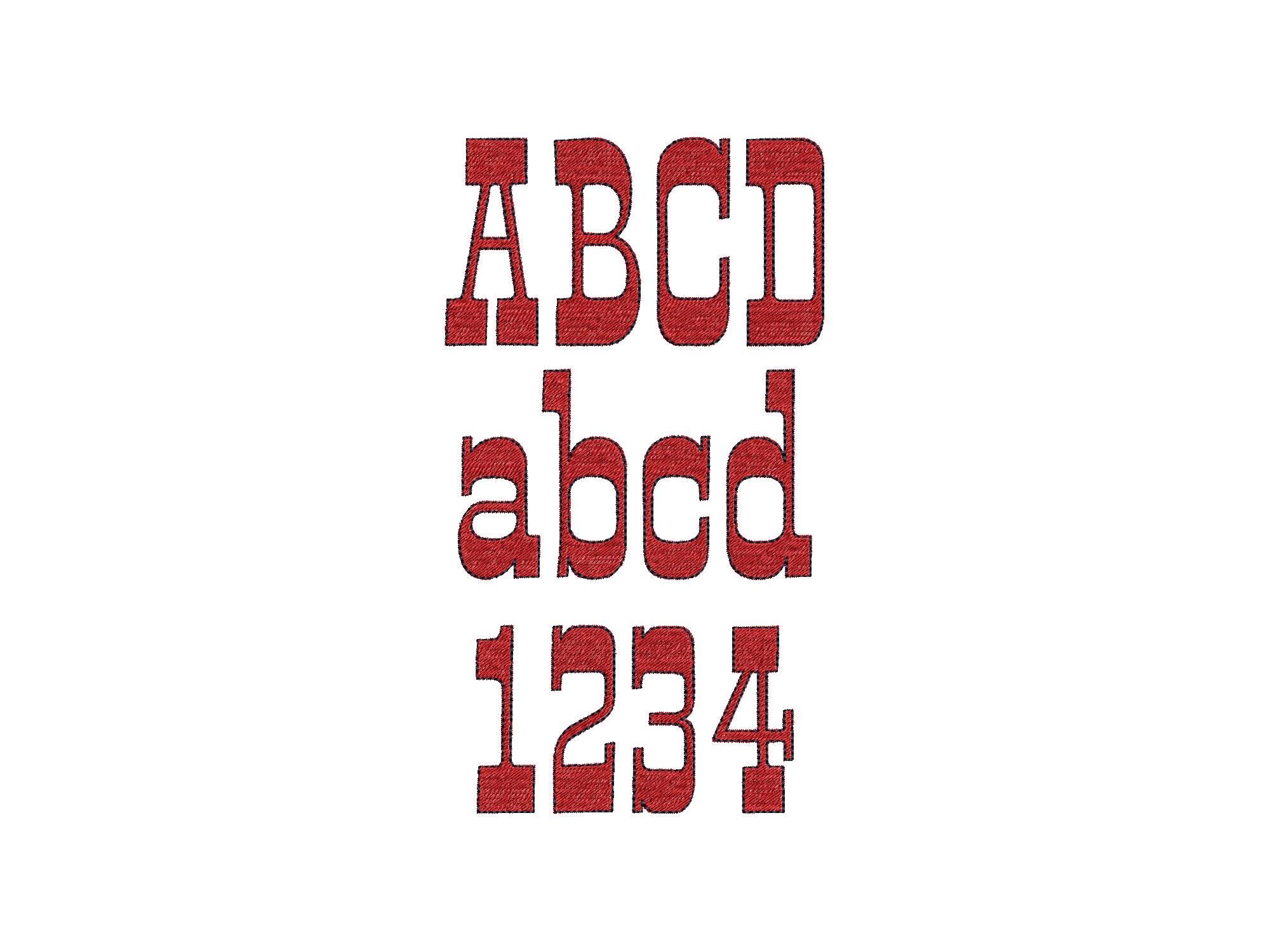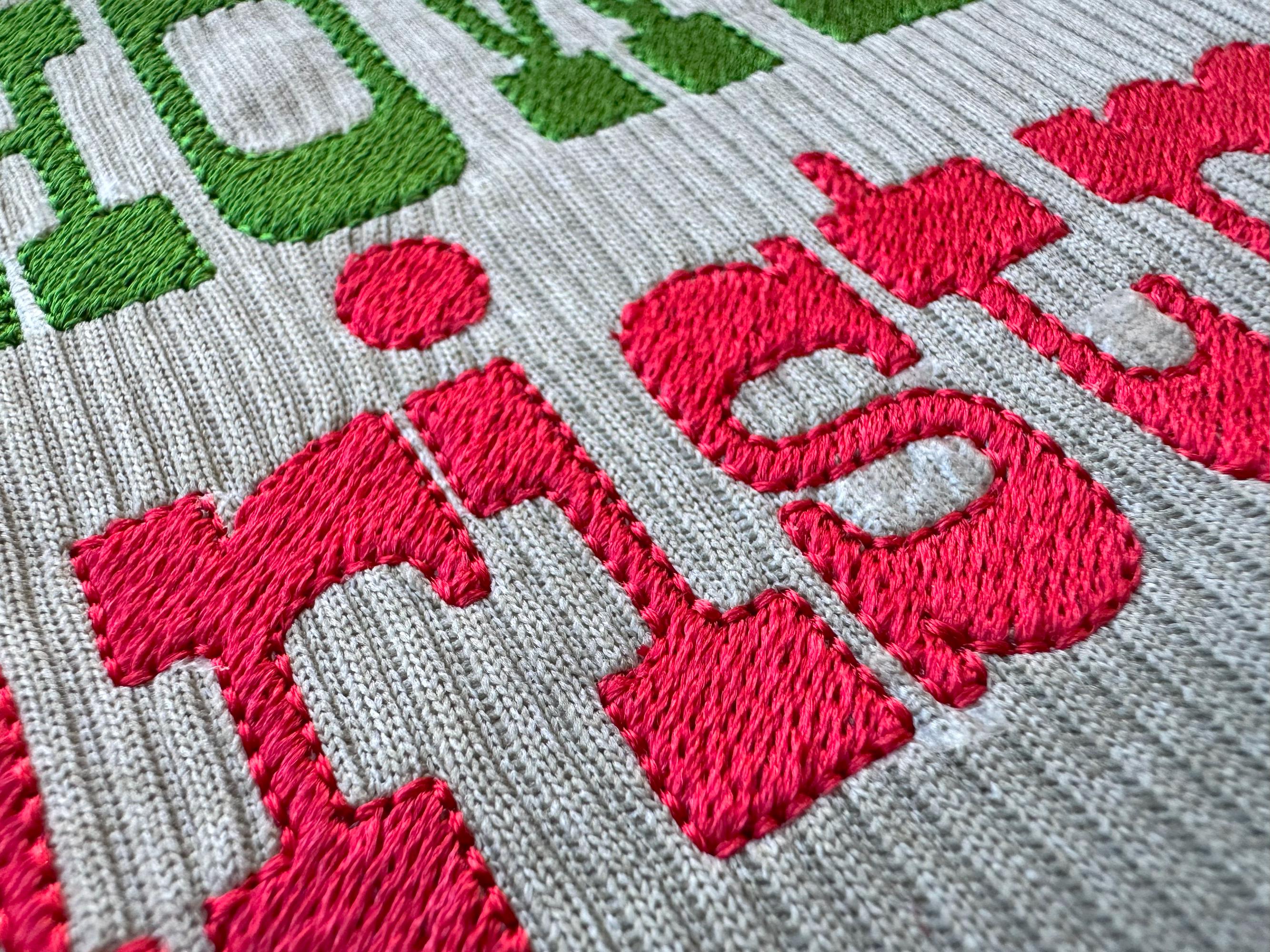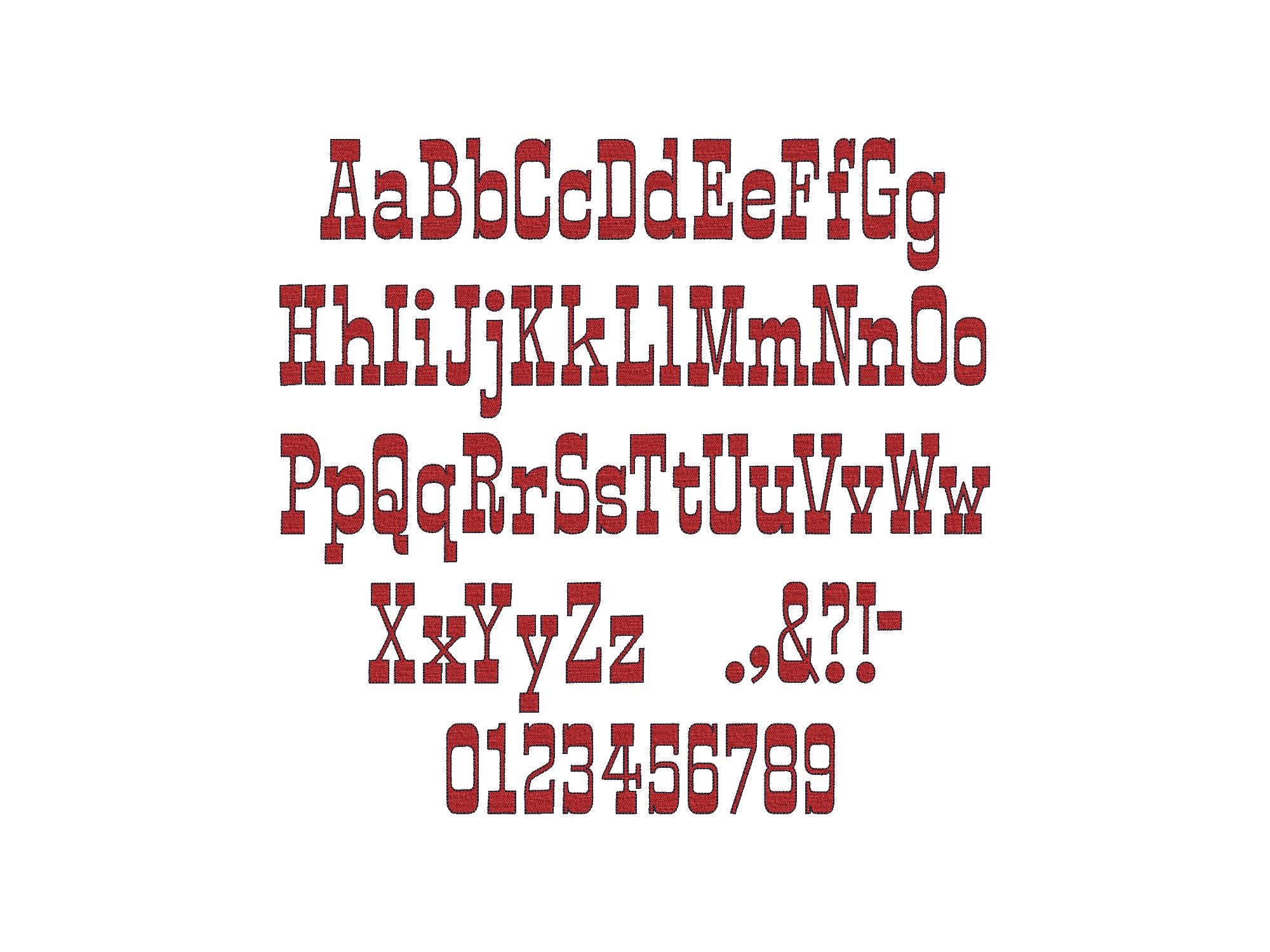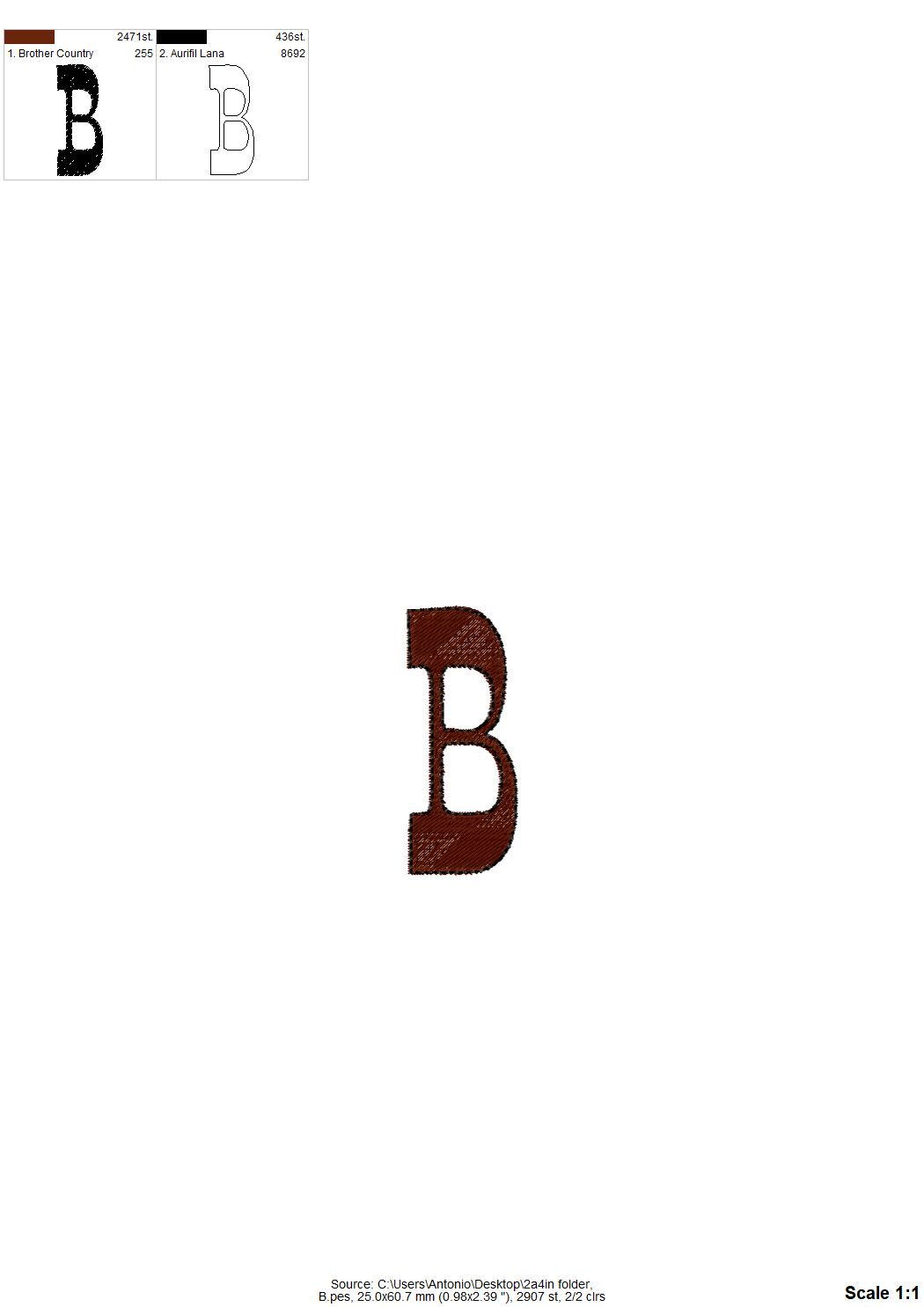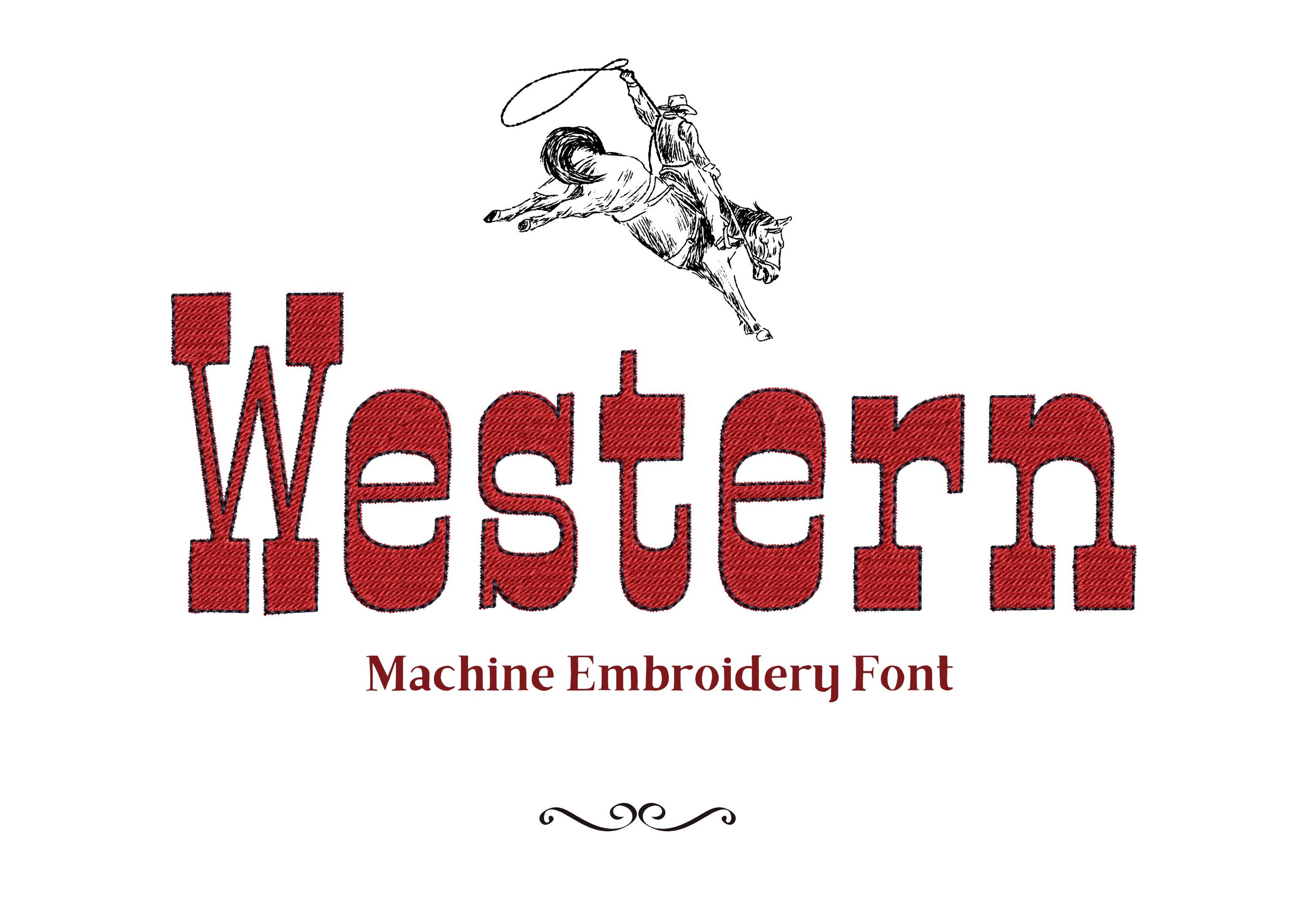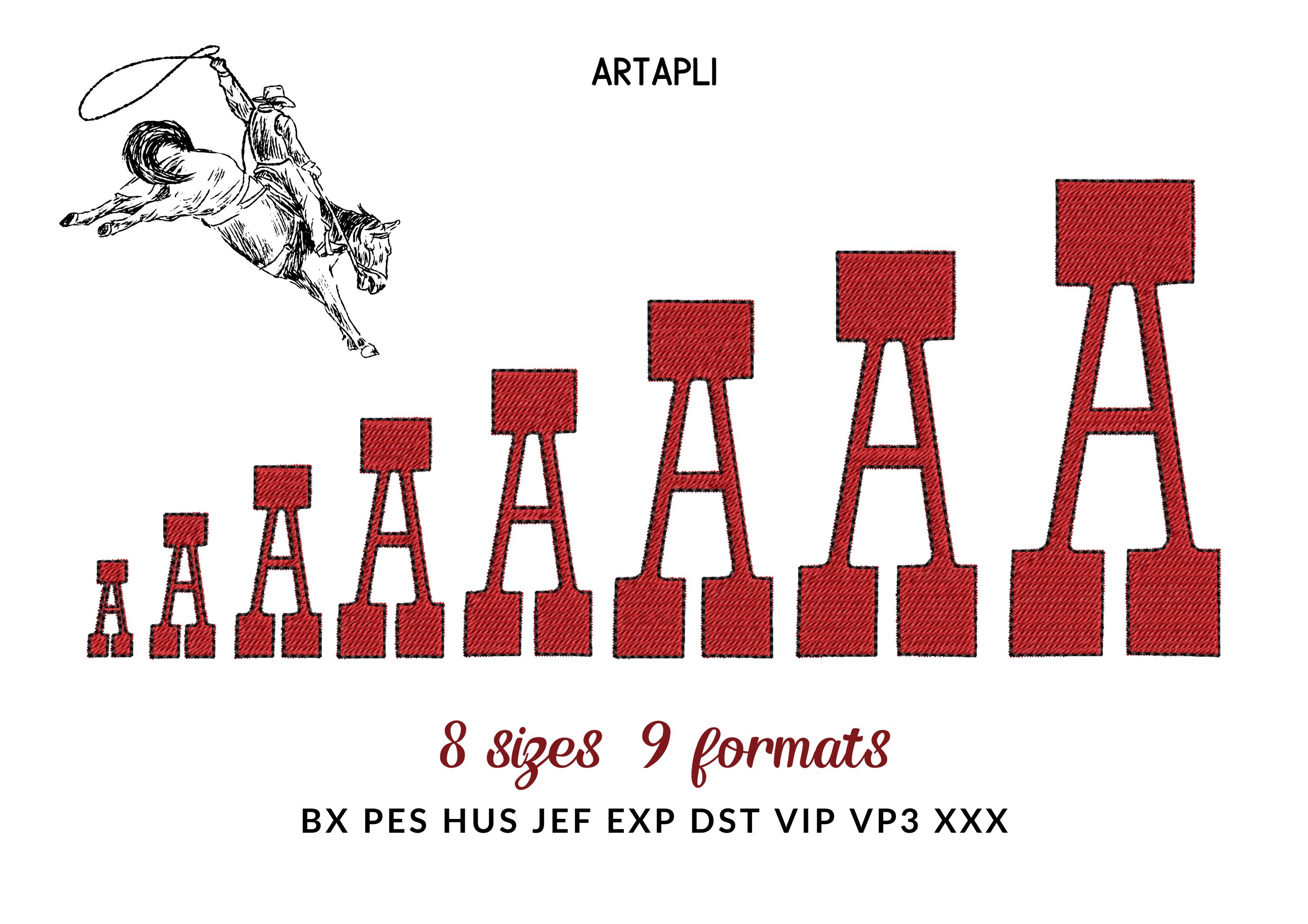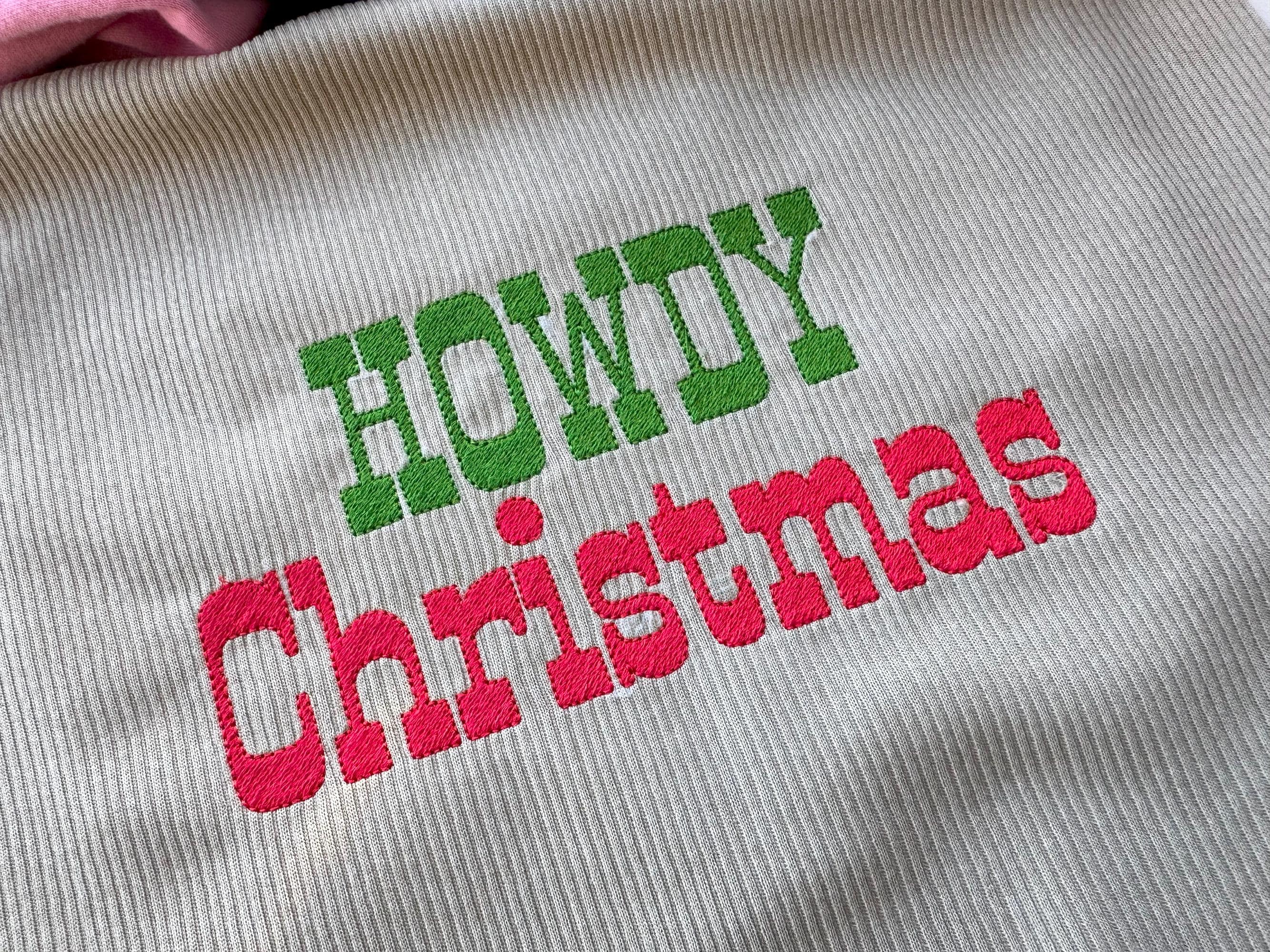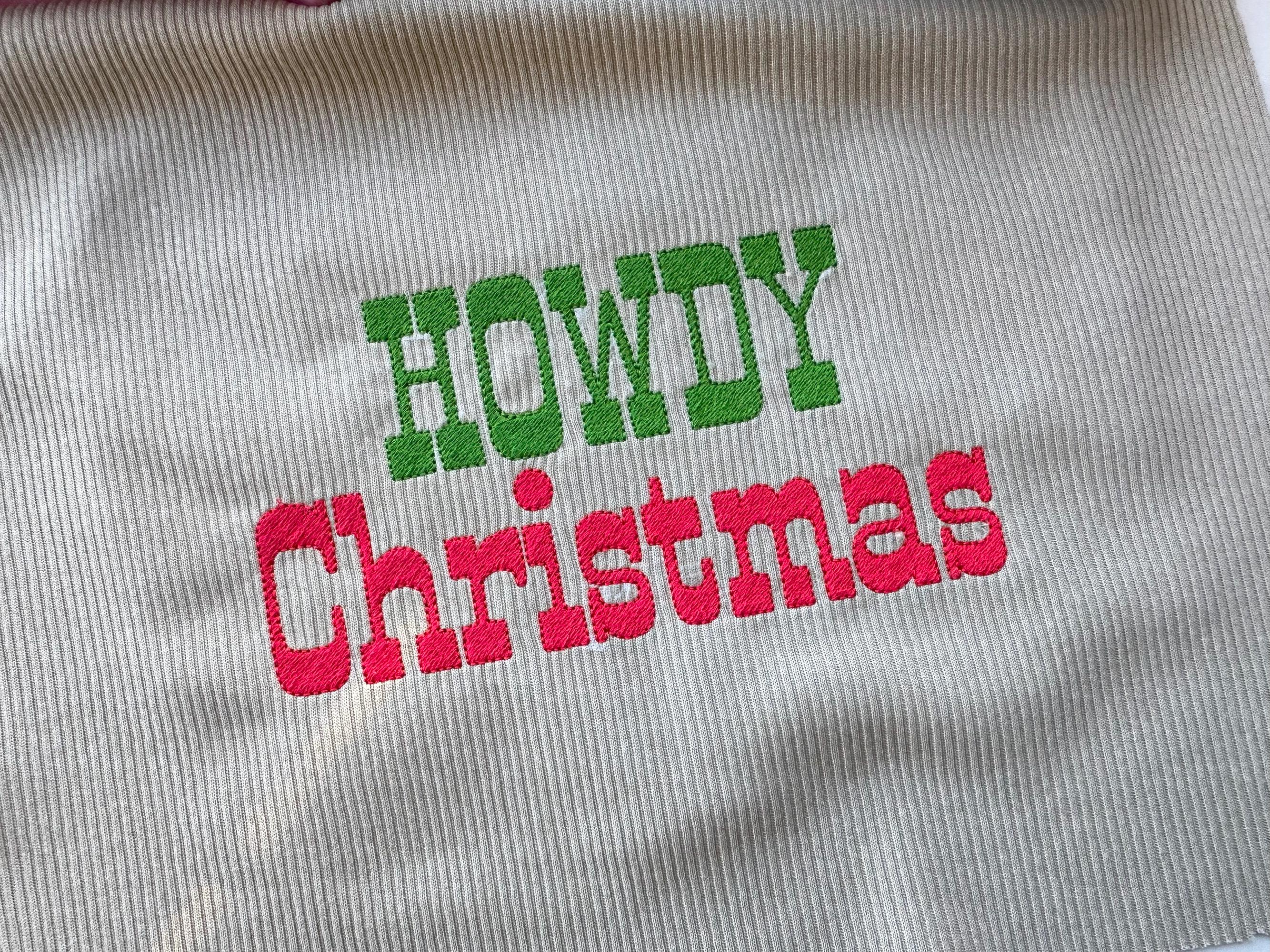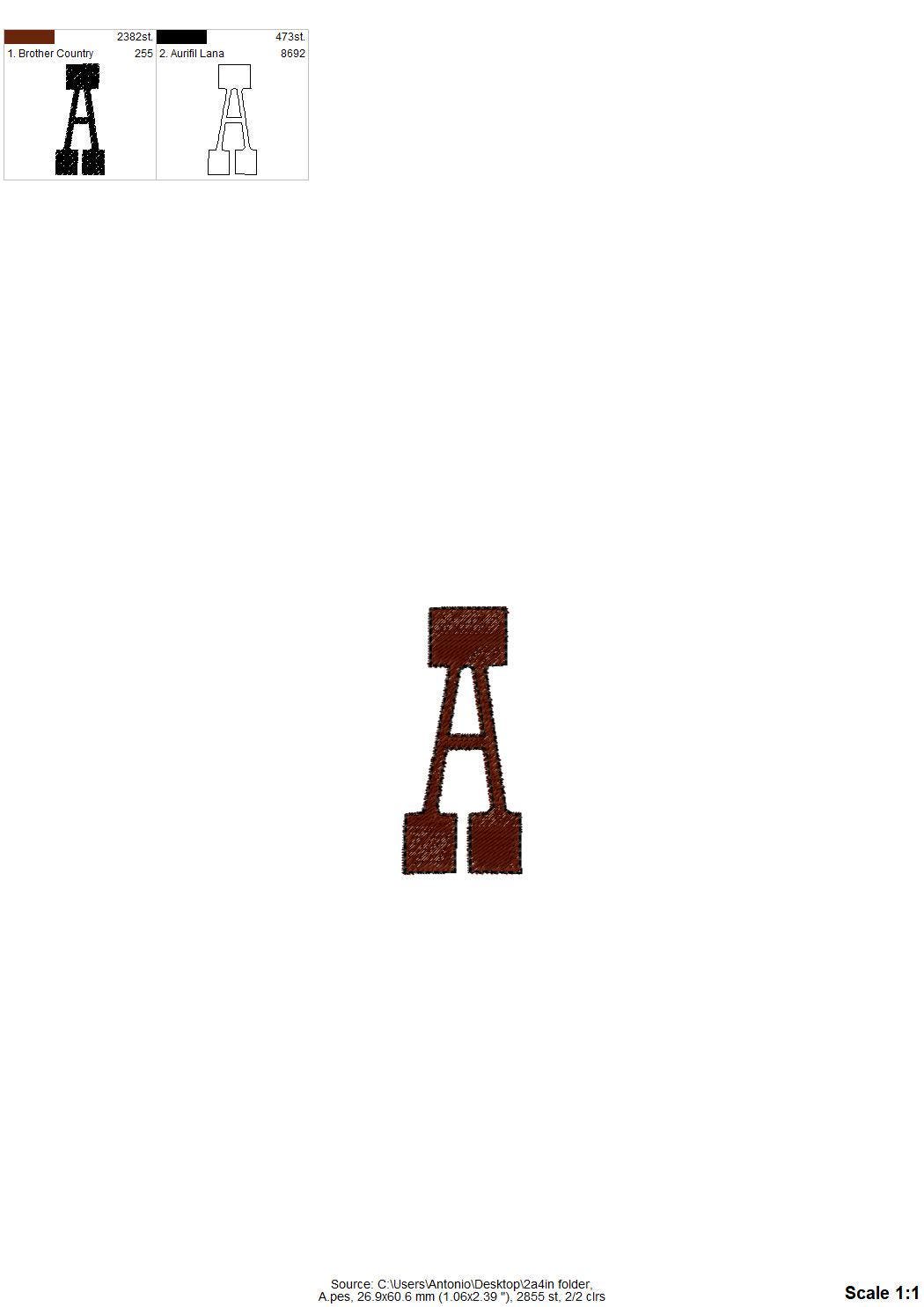
Fill Stitch Western Block Font – A bold and versatile alphabet for machine embroidery! Perfect for monograms and designs, this retro-style cowboy and rodeo-inspired font comes in multiple sizes, ranging from 0.8 inches to 4 inches, to suit all your creative needs.
Whole alphabet Aa-Zz uppercase and lowercase letters, numbers 0-9, and punctuation.